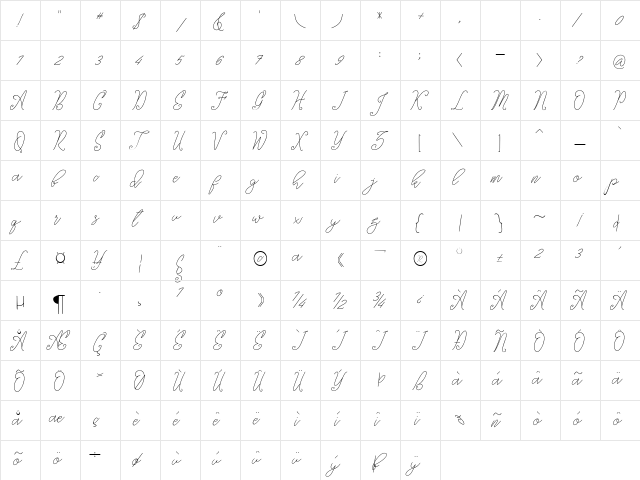
the kastle Regular Font Preview
the kastle Regular
the kastle Regular Font Details
| Foundry | triotone |
Design Context for the kastle Typeface
the kastle is a composed and adaptable typeface that performs quietly and consistently across a wide range of design contexts.